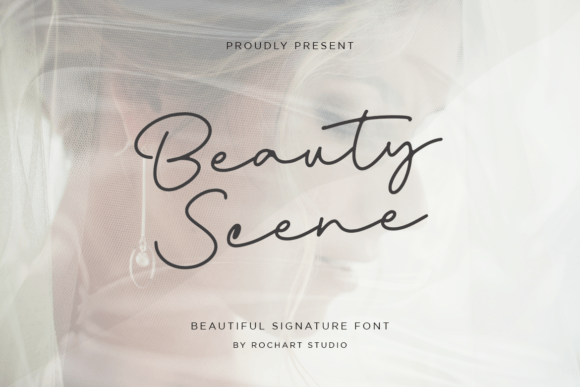
Journey into the realm of visual enchantment with Beauty Scene, a striking signature font that dances across the digital canvas. Its graceful strokes and distinctive letterforms orchestrate an aesthetic symphony sure to leave you spellbound. Designed to captivate the hearts of artisans and branding maestros, Beauty Scene is the key to unlocking a world of creative possibilities.
Visualize your logos, business cards, and marketing collateral adorned with the elegance of Beauty Scene. The font's innate grace will effortlessly enhance the allure of any design project, adding a touch of sophistication that resonates with your audience. Its feminine charm and delicate curves evoke a sense of artistry that perfectly complements beauty, fashion, and lifestyle brands.
But Beauty Scene's allure extends far beyond its aesthetic appeal. With its meticulous detailing and unparalleled craftsmanship, this font is engineered to empower your creative vision and unleash your imagination. Craft eye-catching headlines that command attention and leave an indelible impression. Compose elegant paragraphs that flow seamlessly, inviting readers to delve deeper into your captivating narrative.
Imagine the possibilities as you explore the boundless applications of Beauty Scene. Create stunning social media graphics that captivate your followers, leaving them in awe of your design prowess. Craft enchanting invitations and greeting cards that exude a timeless charm, cherished by recipients for years to come. Unleash your creativity and let Beauty Scene be your boundless muse.
So why settle for ordinary fonts when you can immerse yourself in the extraordinary? Embrace Beauty Scene today and elevate your design projects to breathtaking new heights. Experience the transformative power of a font that's not just a collection of letters, but an exquisite tapestry of art and emotion.